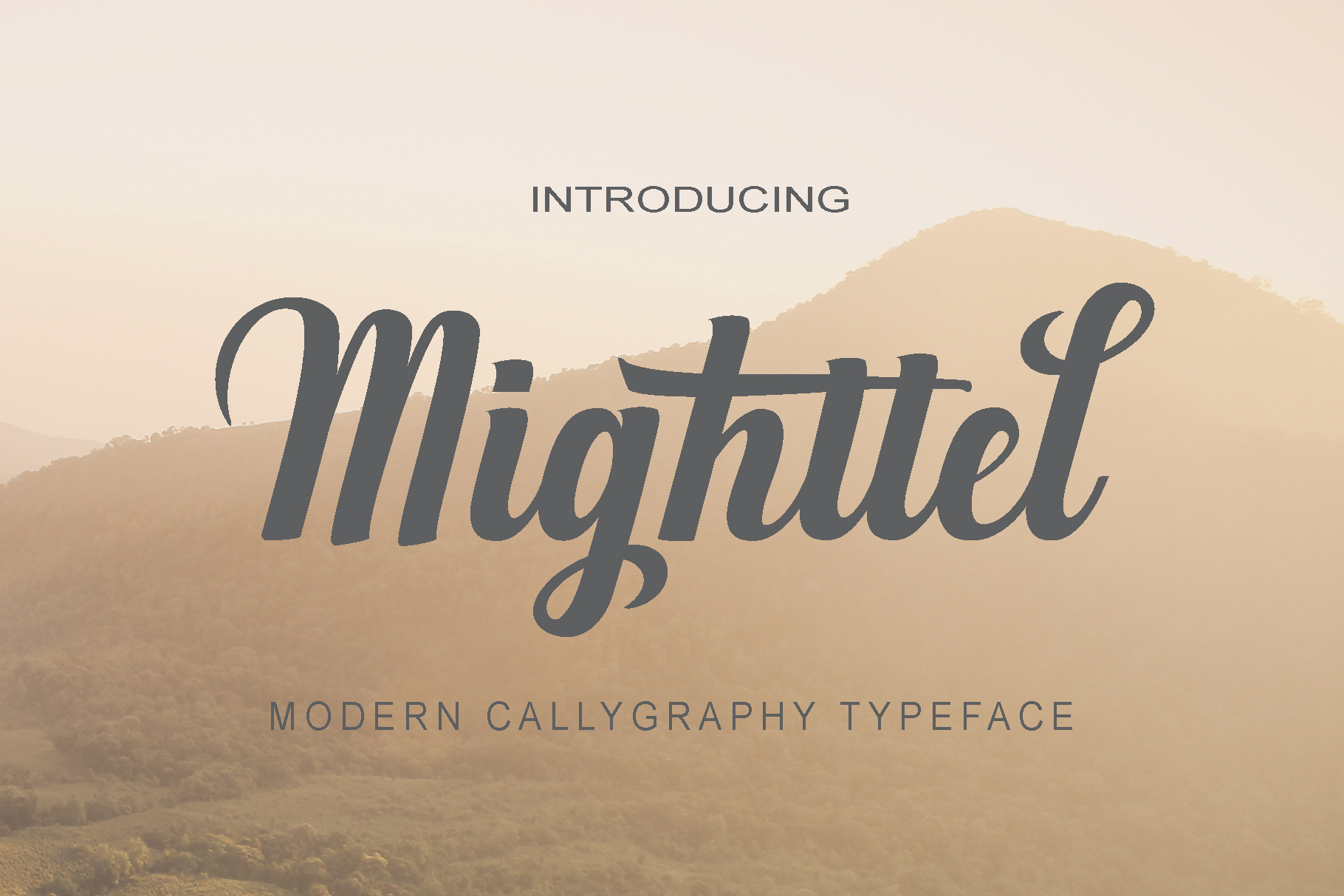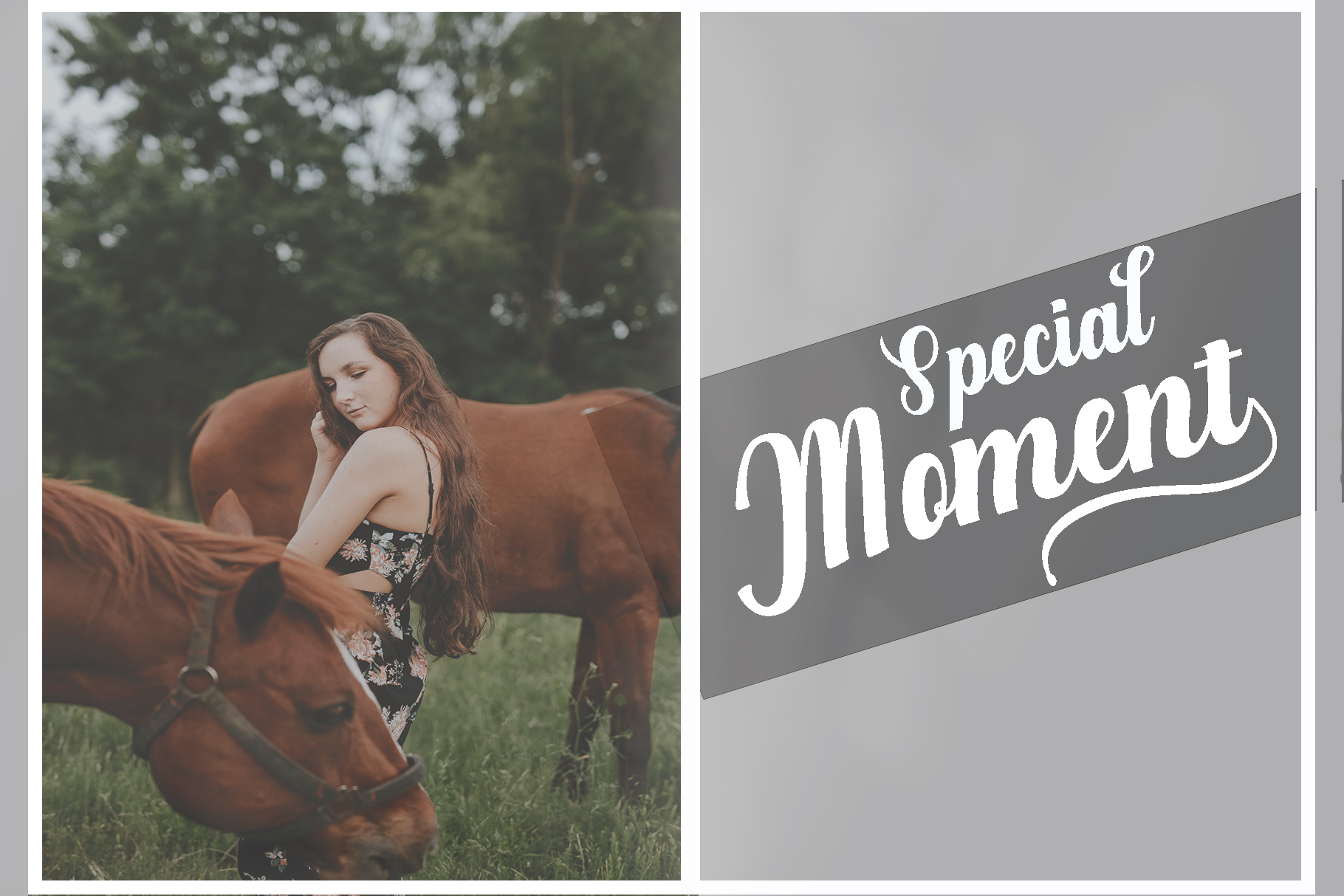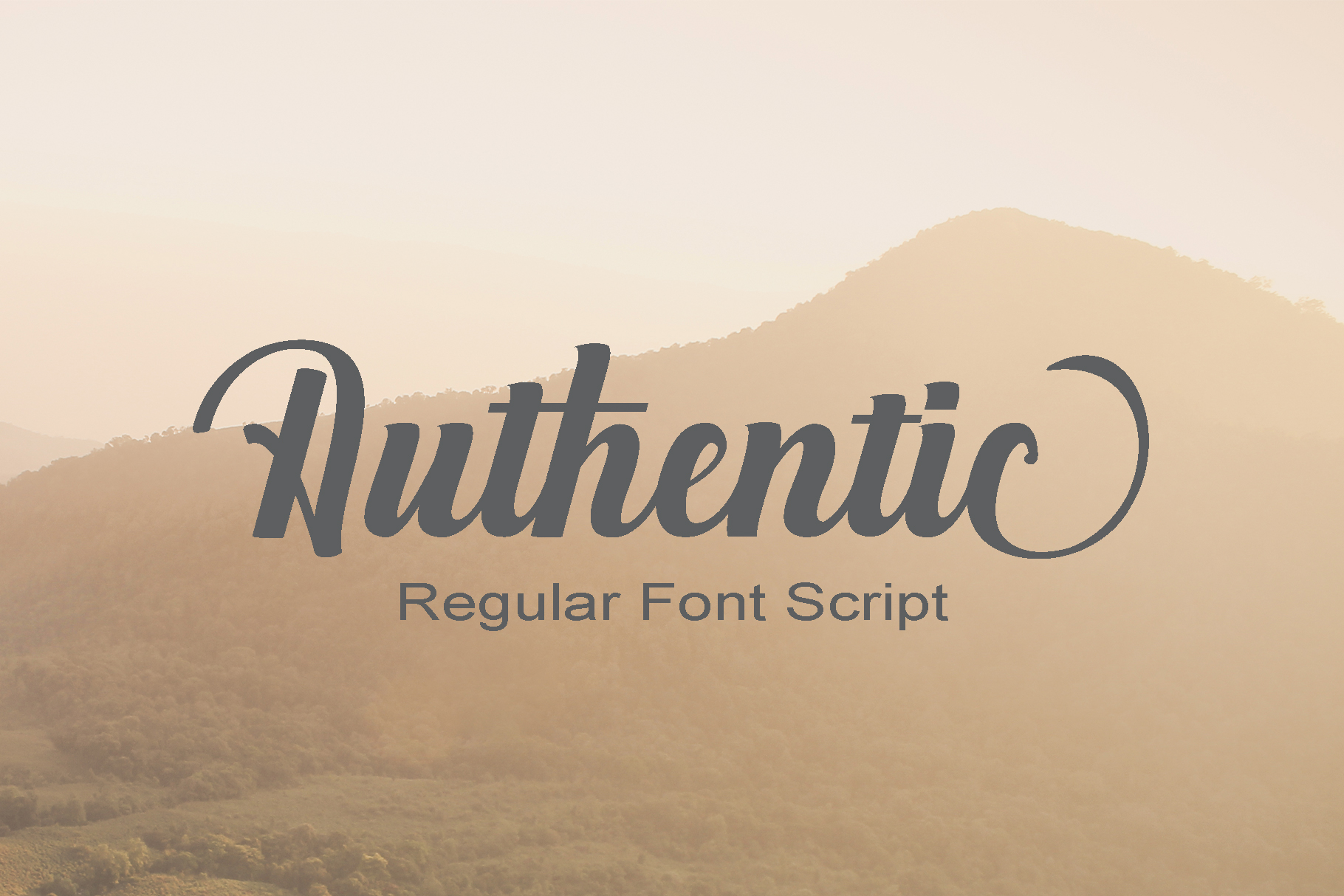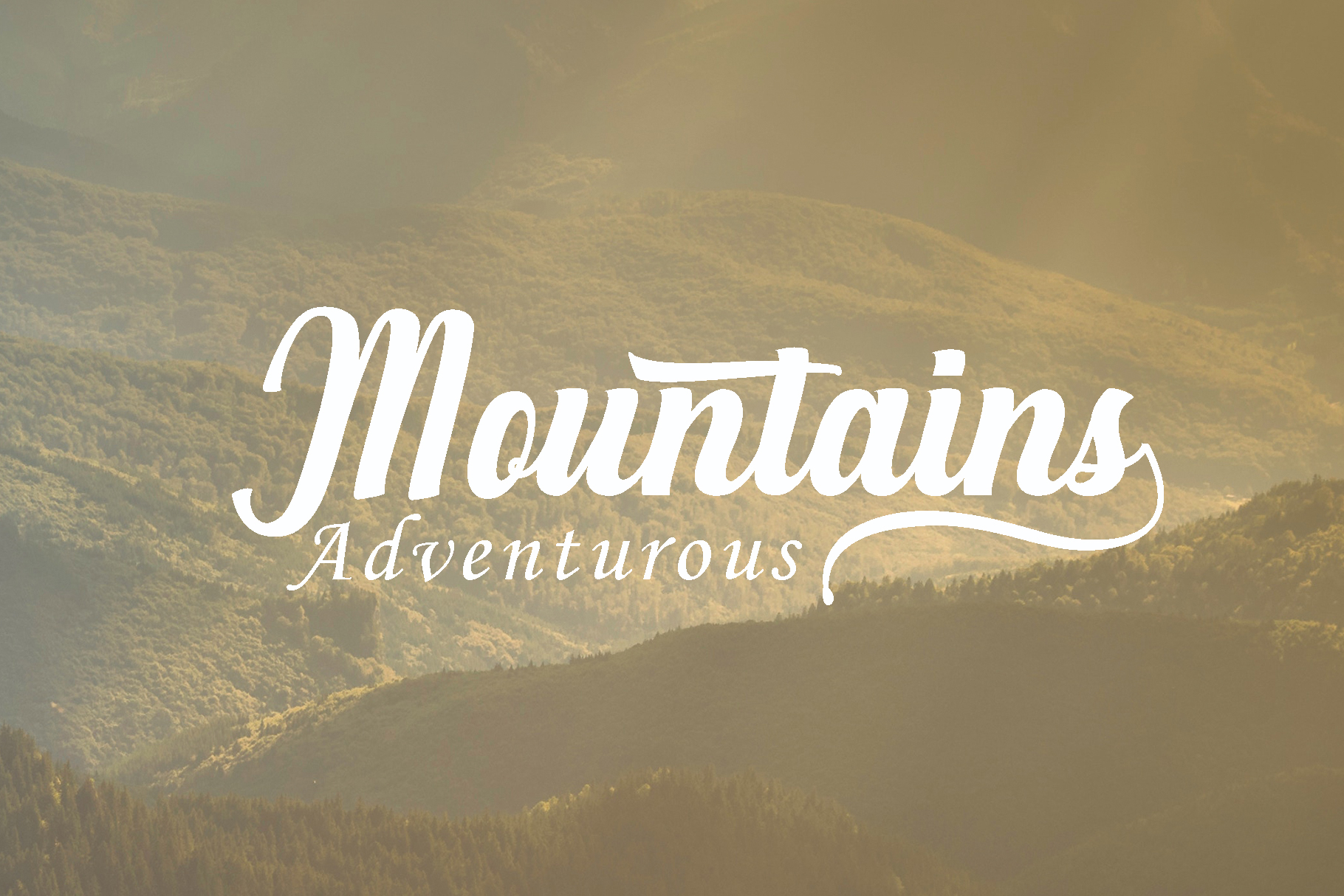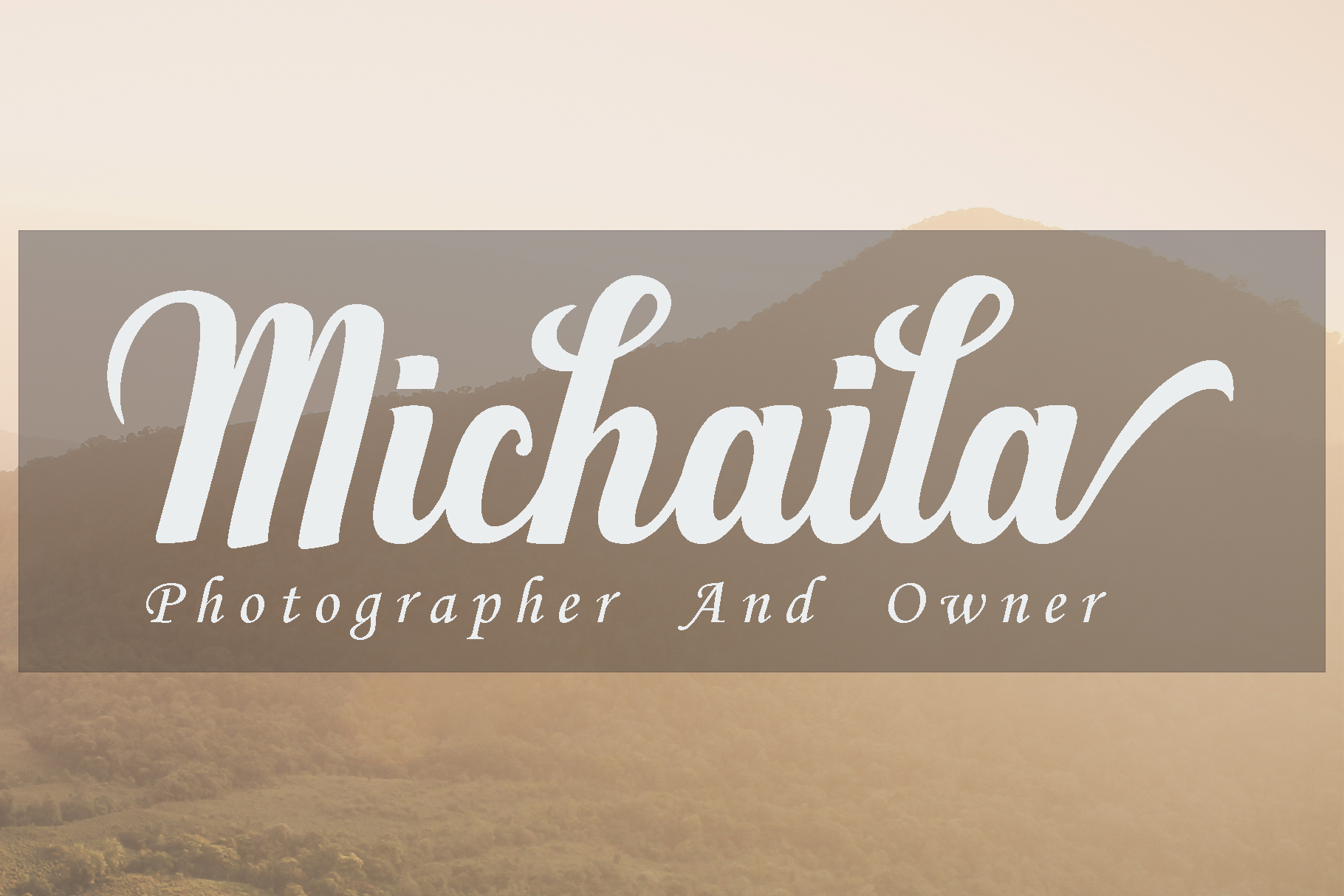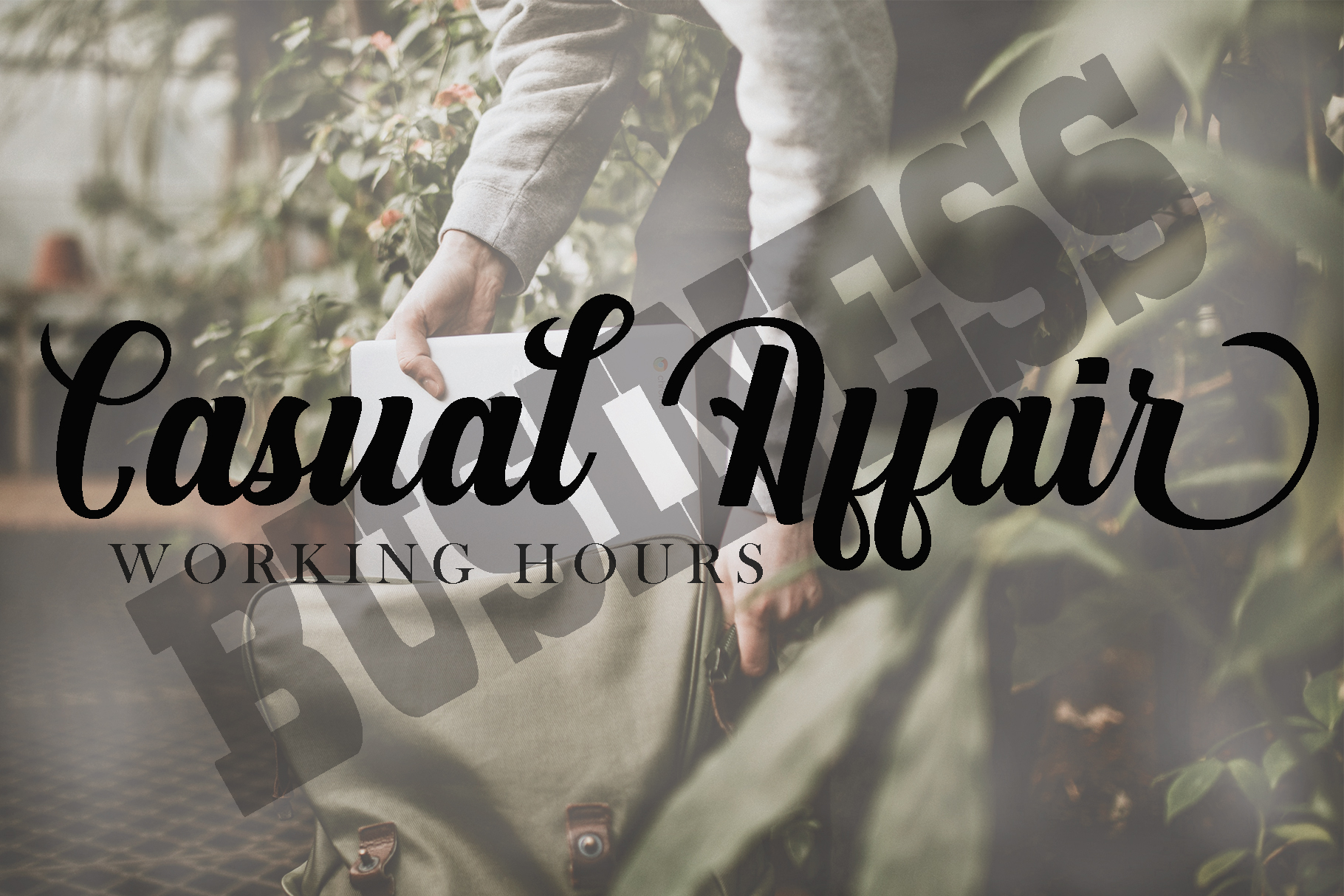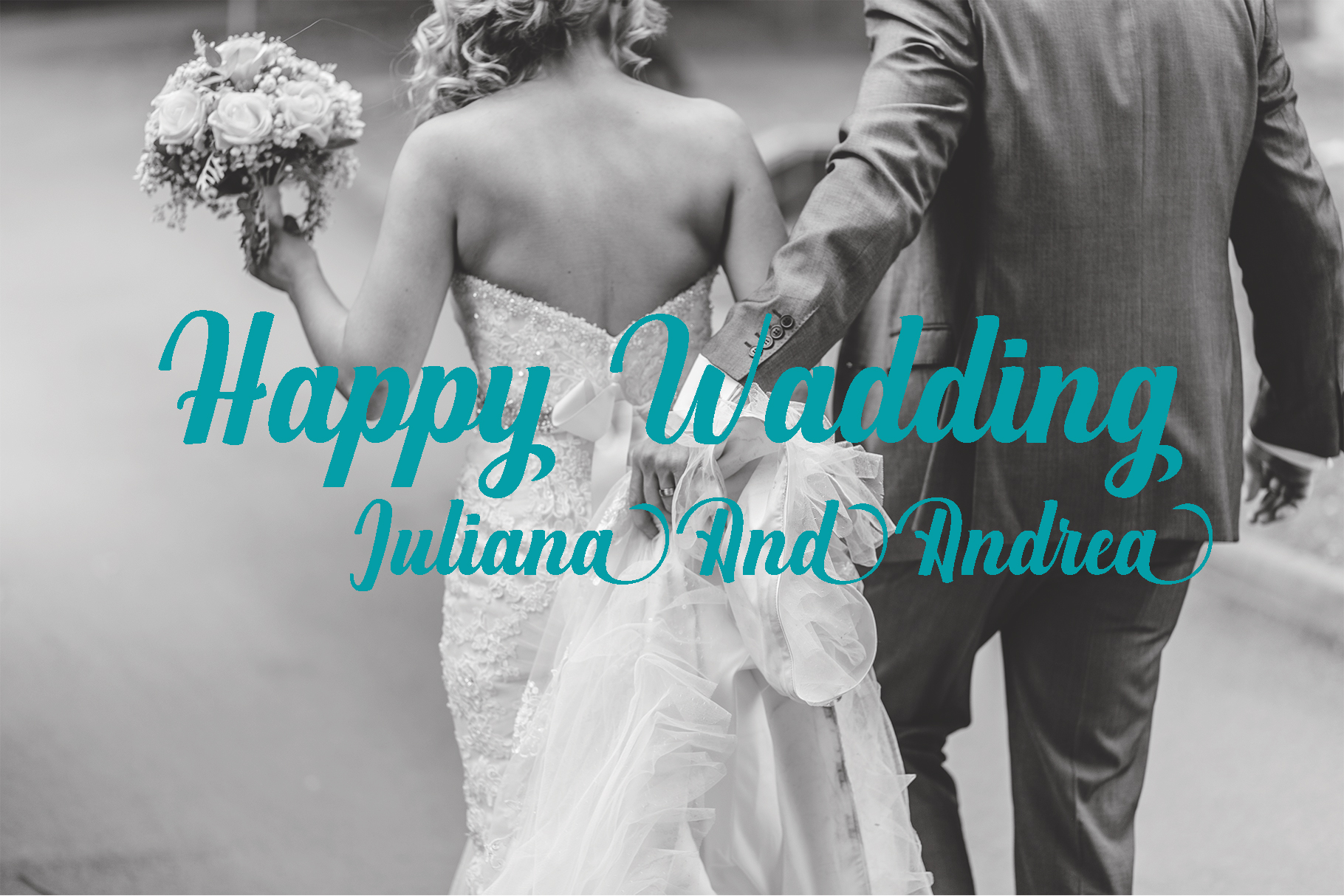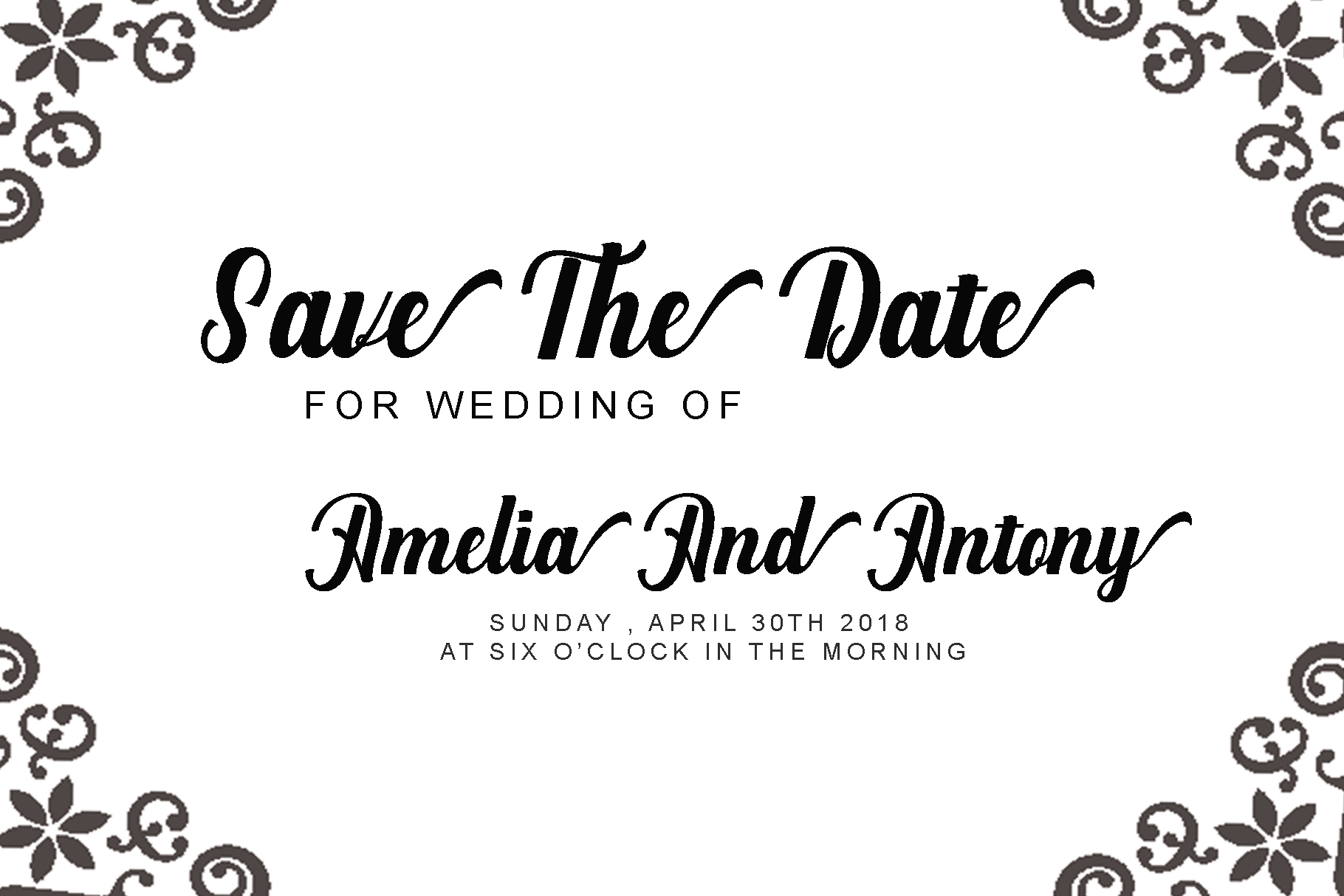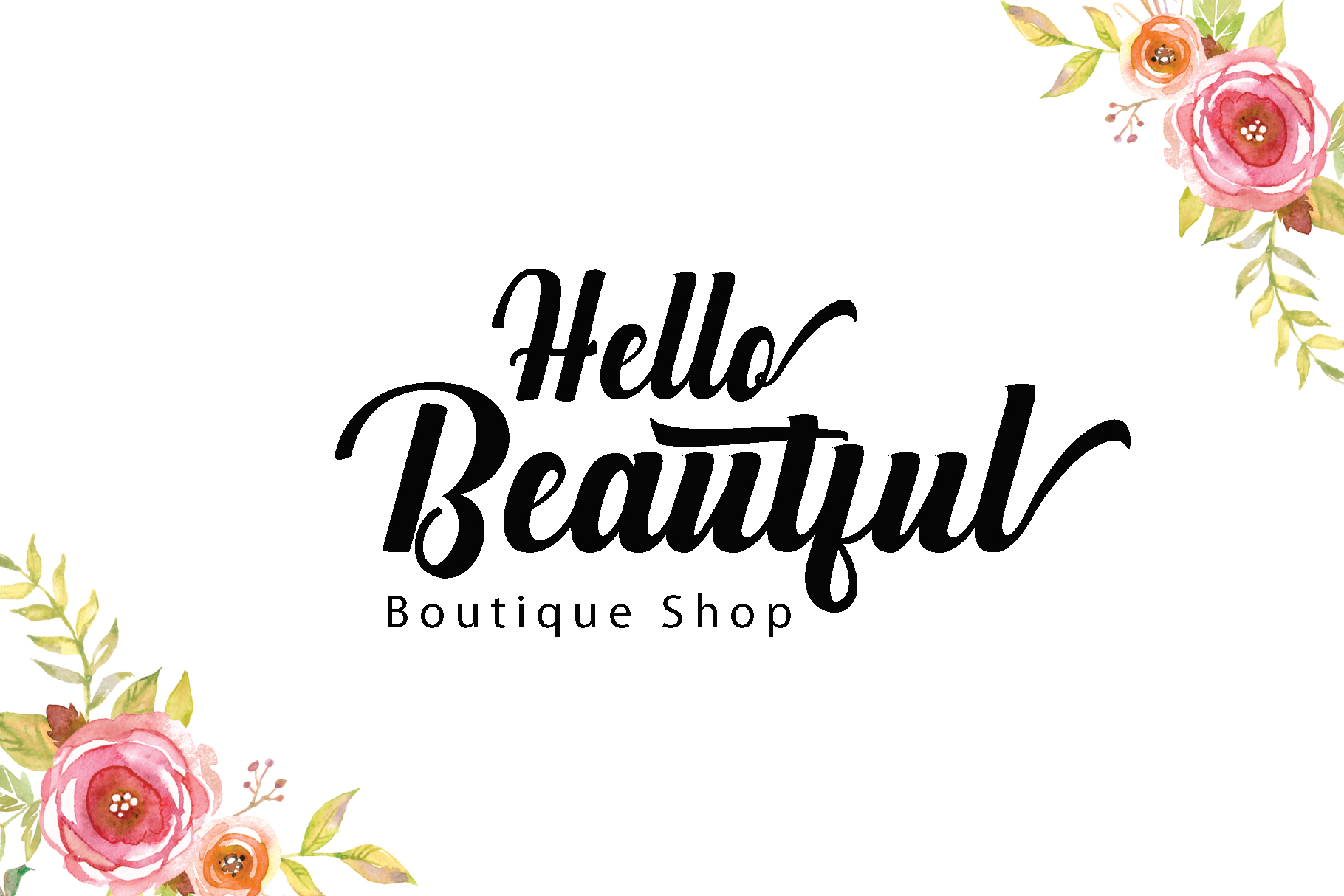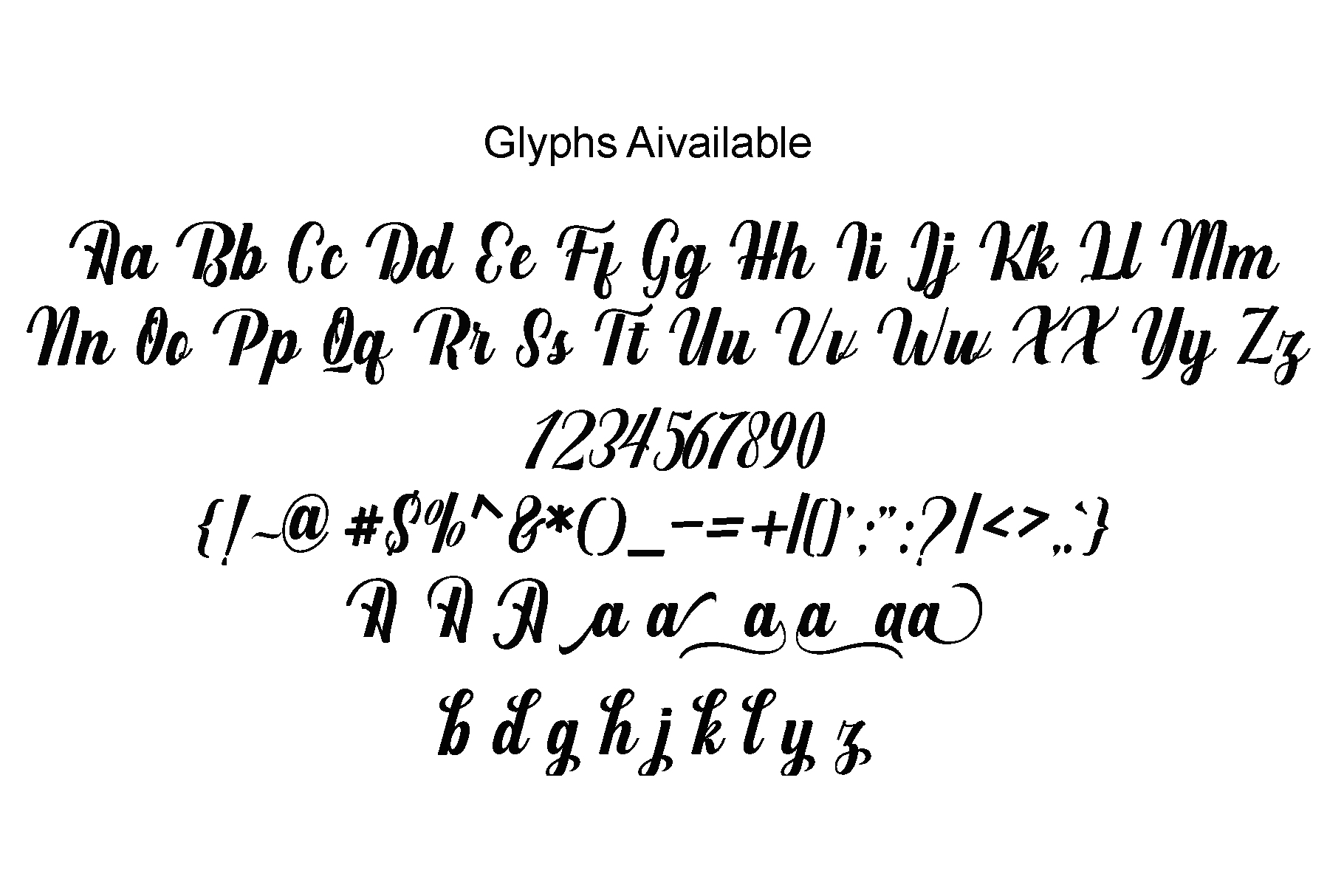
Mighttel Font
About Mighttel Font
Mighttel is a typeface that was completely handwritten, featuring natural characteristics.
It’s suitable for a large range of different applications, such as invitations, signature designs, blogs, business designs, social media and more.